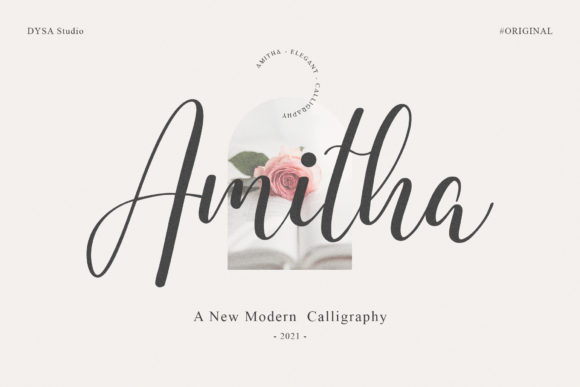
Amitha: A Handwritten Font for Makers and Sellers
There's a moment in every project where the design clicks, where the choice of typeface turns a simple mockup into something that feels real and ready for the world. I was deep in that moment, arranging a new candle label on my screen, swapping through fonts I’d collected over years. I needed something that whispered 'handmade luxury' without shouting it. That’s when I found Amitha. This Script Handwritten font isn’t just another option in your design software; it’s a beautiful light handwritten font with a unique feel that immediately elevated my label from a simple graphic to a branded piece of art.
Amitha for Product Labels and Luxury Branding
Amitha truly shines when applied to physical product presentation. Testing this font on real shop materials—from candle labels to boutique packaging tags—revealed its stunning impact. The light, elegant stroke weight of Amitha adds a luxury spark to any design project you wish to create, particularly for items where perceived quality is paramount. On a simple kraft paper label, the font conveyed a delicate, artisanal touch. On a clean, minimalist sticker for a soap bar, it suggested purity and care. This isn’t a generic Script Handwritten font; it has a specific personality—gentle, refined, and intentionally crafted—that translates beautifully onto merchandise.
For readability on small items, I found Amitha performs excellently for short phrases like product names, scent titles, or short ingredient lists. However, for very tiny cuts on machines like Cricut or Silhouette, or for dense blocks of text like full instructions or legal disclaimers, a simpler sans serif font would be a necessary pairing. Amitha is a display font, best used for the elements you want to highlight and give that emotional, decorative lift.
Using Amitha in Wedding Stationery and Event Design
The unique feel of Amitha makes it a natural choice for any project centered on celebration and personal touch. I applied it to mockups for wedding invitations, welcome signs, and printable seating cards. The font’s light handwritten character brings an immediate warmth and elegance to digital downloads and physical stationery. It feels less like a rigid typeface and more like a gentle, personal inscription, which is exactly the mood you want for such events. It pairs beautifully with a clean, thin serif font for body text, creating a harmonious and premium-looking suite of designs.
When considering Amitha for these uses, it’s wise to check the included font files for alternates and ligatures, which can add even more customization and fluidity to names and special words. This level of detail reinforces the luxury spark in your final product.
Amitha on Digital Printables and Wall Art
The application of Amitha extends beautifully into the digital space. For printable wall art, planner pages, and digital template previews, this font adds a cohesive, designer-quality touch. Its stunning impact lies in its ability to make a digital creation feel less like a standard template and more like a bespoke piece. In mockups for a farmhouse-style quote art or a minimalist monthly planner cover, Amitha provided the focal point that drew the eye and set the tone. It’s a font that communicates creativity and care, which is essential for connecting with audiences in marketplaces like Etsy.
For shop listing images and mockup previews, using Amitha for titles and key phrases can significantly enhance the perceived value of your digital product. It signals to potential buyers that attention has been paid to every design detail.
Pairing Amitha with Other Fonts for Shop Materials
No font lives alone in a real maker’s toolkit. Amitha, being a distinctly stylistic Script Handwritten font, needs a practical partner for everyday shop text. I found it works seamlessly with a simple, neutral sans serif font for all auxiliary text—pricing, descriptions, website details, and longer content. This pairing creates a clear hierarchy: Amitha for beauty and emotion, its partner for clarity and information. For a cohesive brand identity across tote bags, mugs, signs, and packaging, establishing this font pairing early is a practical step that ensures consistency and professionalism.
Where Amitha Brings a Creative Spark to Your Projects
Ultimately, Amitha is a font for moments that matter in your creative business. It’s for the product label that needs to stand out on a crowded shelf, the wedding invitation suite that must feel personal and premium, the wall art printable that aims to inspire, and the shop branding that wants to whisper quality rather than shout it. Its beautiful light handwritten style is not just a visual choice; it’s a strategic one for enhancing emotional appeal and audience engagement.
From seasonal holiday tags to everyday greeting cards, testing Amitha across real case scenarios confirms its versatile charm. It may not be suitable for every single line of text in your shop, but for the lines that carry the heart of your message—your brand name, your product title, your special quote—Amitha offers that unique feel and stunning impact. It adds the luxury spark precisely where you want it, transforming ordinary projects into designs that feel complete, considered, and truly crafted.